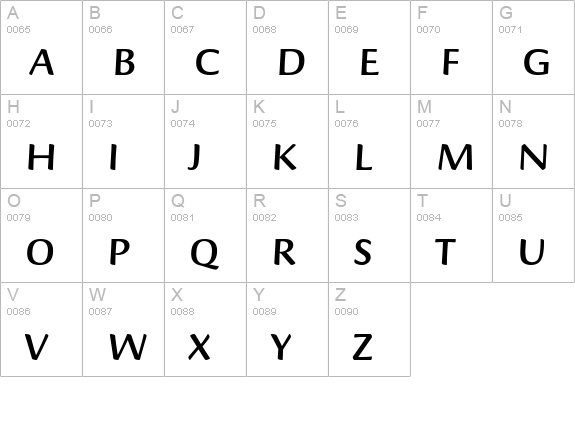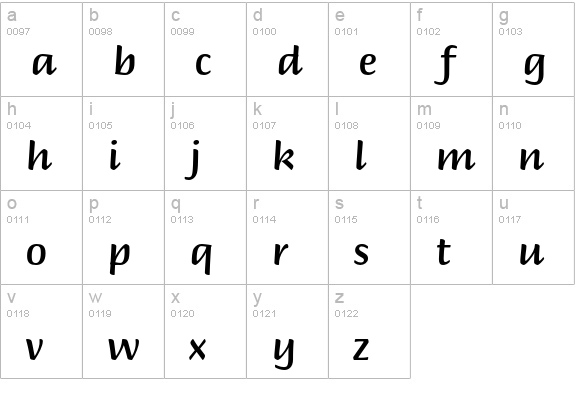
Briem Script Std Medium Font Details
Briem Script Std Medium is a balanced, medium-weight variant in the Briem typeface family \xE2\x80\x94 well suited to sub-headlines, navigation, and balanced editorial work.
Briem Script Std Medium font exudes elegance and sophistication with its delicate and flowing strokes. Perfect for adding a touch of charm to any design project, this font boasts a balance of traditional calligraphy with a modern twist. The medium weight of the font allows for easy readability while maintaining a sense of grace and style. And the best part? Briem Script Std Medium font is available for free download at FontsMarket.com. Whether you're working on invitations, branding materials, or any other creative project, this font is sure to elevate your design with its timeless beauty. Don't miss out on the opportunity to enhance your work with this stunning typeface, easily accessible for free at FontsMarket.com.